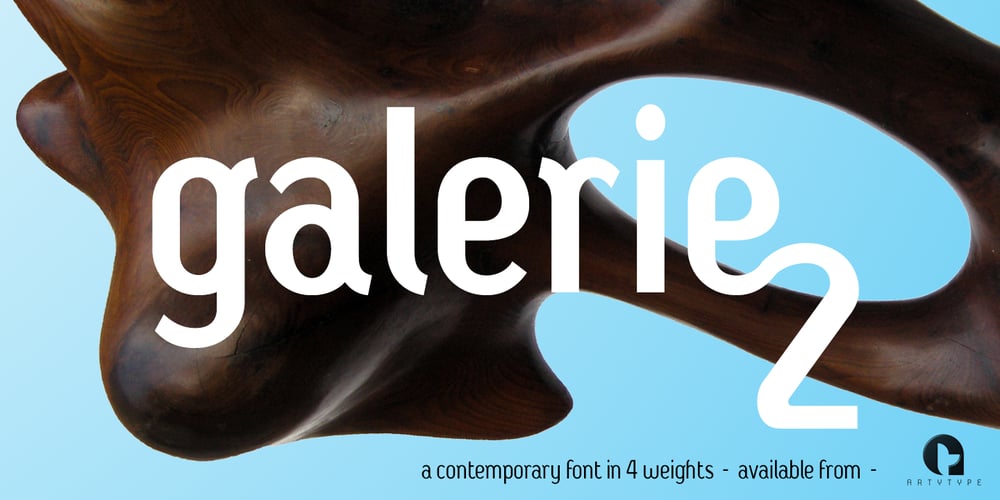
Galerie 2 Font Family was designed by James Marsh and published by ArtyType. Galerie 2 contains 4 styles and family package options. Galerie 2 has a narrower styling and less contrast than its sister family but incorporates the same unique characteristics as Galerie within its elegant proportions. The close genetic proximity to Galerie enables dual deployment in text and artwork, each family complimenting the other in combinations of headings and copy. Galerie 2, like the full width Galerie volume, comes in 4 weights from Thin to Bold.